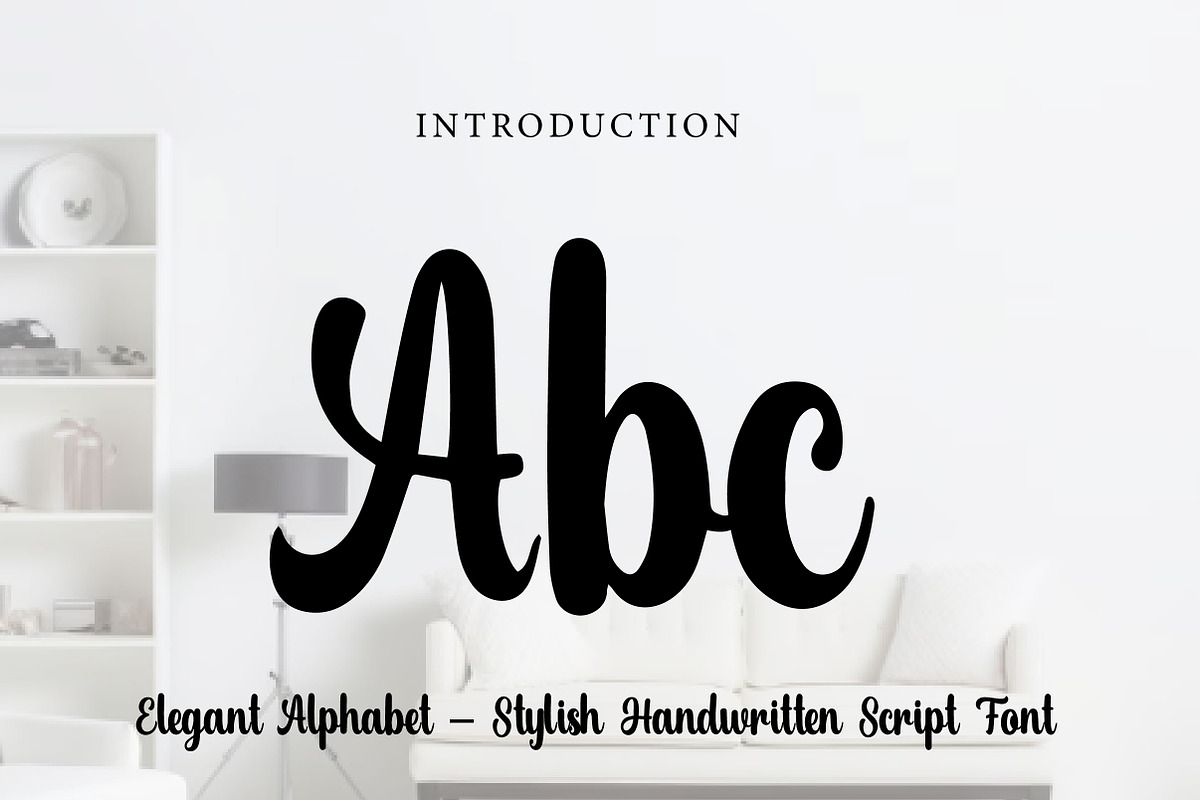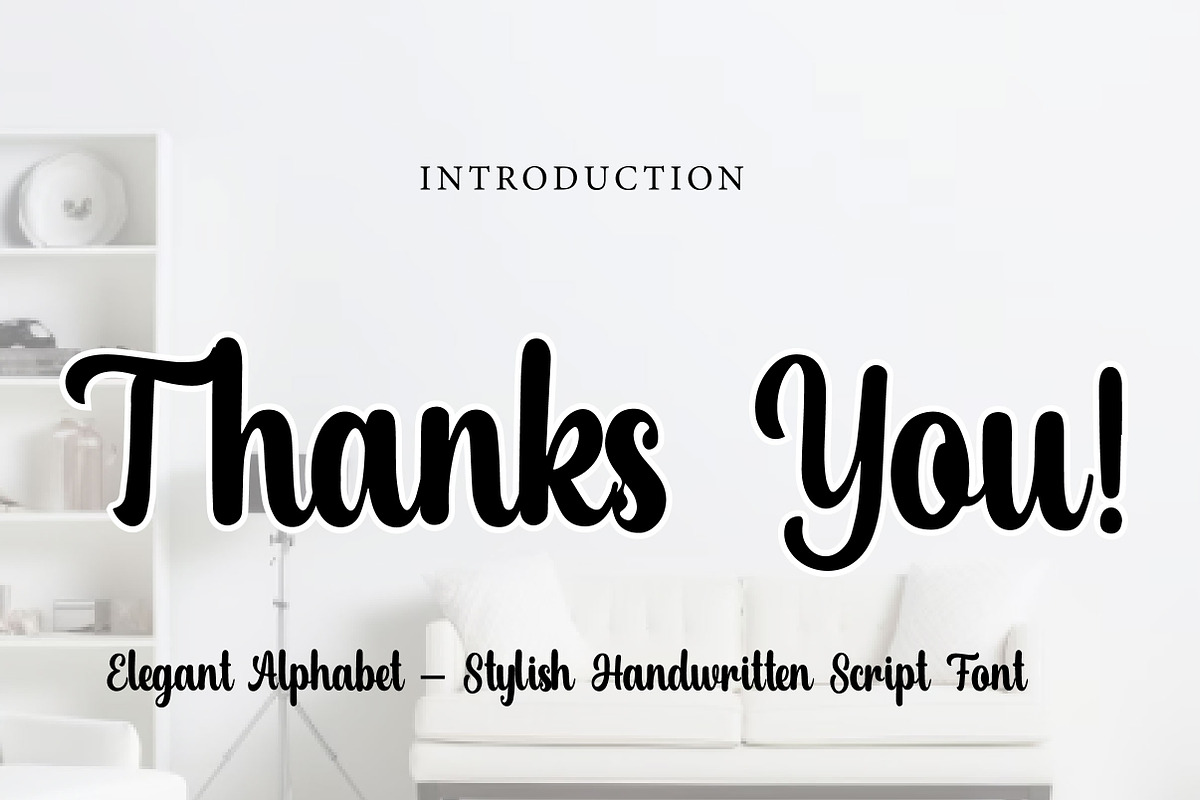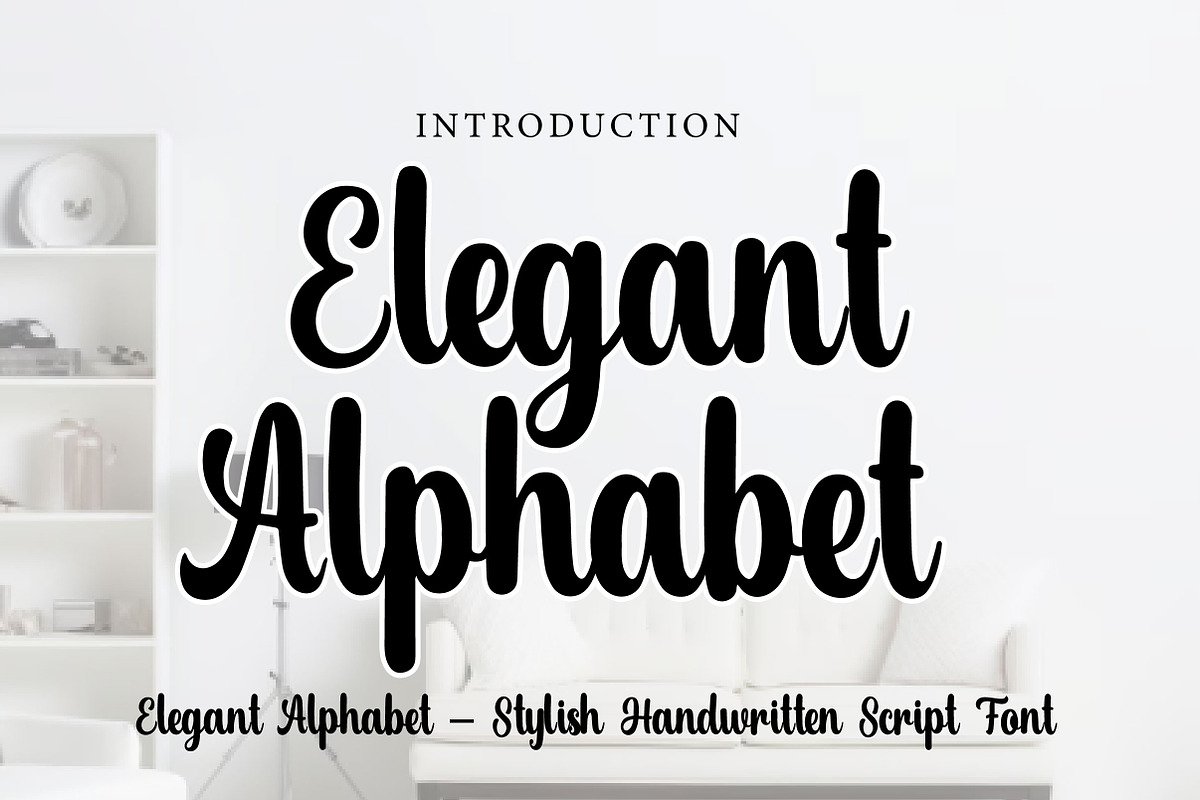
Elegant Alphabet
Elegant Alphabet – Stylish Handwritten Script Font
Elegant Alphabet is a smooth, stylish, and modern handwritten script font, perfect for branding, logos, invitations, packaging, and elegant creative projects.
Elegant Alphabet is a beautiful handwritten script font designed to bring sophistication, style, and charm to your typography. With its smooth flowing strokes, balanced curves, and clean letterforms, this font creates a refined and graceful look that feels both modern and timeless.
Its elegant yet natural style makes Elegant Alphabet perfect for a wide range of creative projects. Whether you are designing branding, logos, wedding invitations, product packaging, social media graphics, quotes, or editorial layouts, this font helps your text look polished, stylish, and memorable.
The flowing script ensures a personal handwritten feel while maintaining readability and professionalism. Suitable for both digital and print use, Elegant Alphabet is an ideal choice for designers who want a font that feels classy, modern, and versatile.